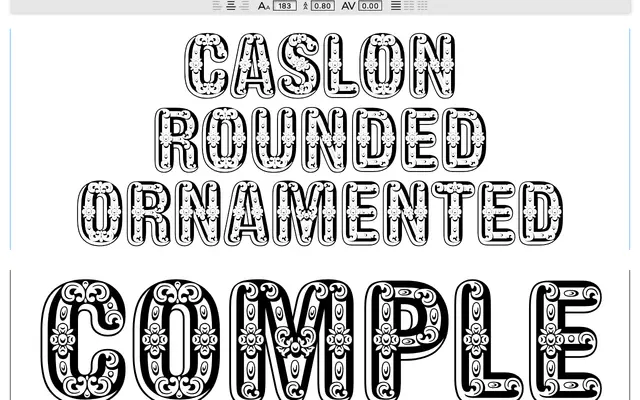
Caslon Rounded Ornamented
Commercial Type · Paul Barnes · 2018
Caslon Rounded Ornamented specimen from Commercial Type
The ornamented variant of Caslon Rounded, decorated in the Victorian display tradition for posters and packaging.
An ornamented headline face by Paul Barnes that decorates the rounded skeleton of Caslon Rounded with patterned infill in the Victorian display tradition. Sits alongside the standard, italic and inline cuts of Caslon Rounded as part of the broader Caslon revival programme, useful for short bursts of display typography on posters, packaging, signage and editorial spreads that want a warm, decorated nineteenth-century voice.
Commercial Type publish Caslon Rounded Ornamented as the ornamented variant within the Caslon Rounded family, drawn from the 1836 Caslon & Catherwood rounded original.